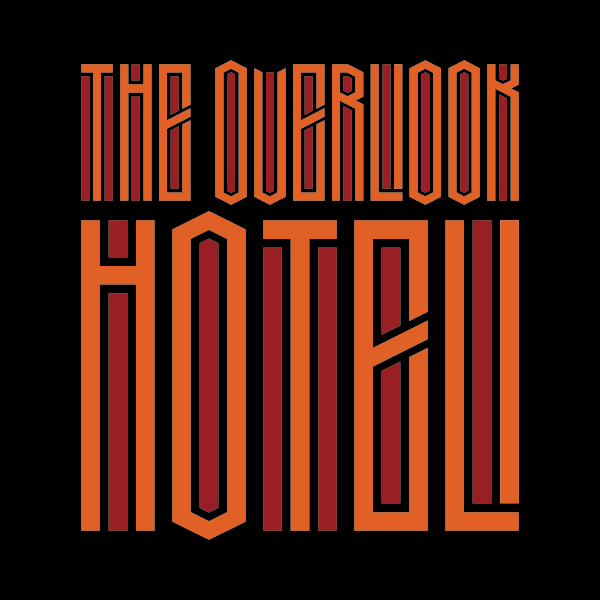
This font is inspired by graphic designer Rafael Serra, who created the letters in "SHINING" using a pentagonal style reminiscent of the Overlook Hotel carpet from The Shining. While I did completely design the font myself, I cannot take credit for the letters S, H, I, N, or G as they are of his design. Here is the link to his Dribble account.
For the rest of my letter forms, I modeled in his style and tried to emulate the pentagonal carpet pattern from the movie. Please enjoy!!
Tall and highly decorative! Reminds me of Cyrillic vyaz in that regard. Nice one. :)
A fresh style that needs more work, seeking unity and homogeneity in the design and in the height of the glyphs, which —as shown— currently reduces much of the positive force created with the font's original angular design. Still, the glyphs are nice.
I personally can’t really decide if unifying the height would help or hurt the design. I’d say that it adds some charm to the font and even makes it slightly more legible since the glyphs are somewhat more discernible due to their different heights.
I agree with @Cookielord on some points about the creativity of maintaining the different glyph heights he mentions, but I was specifically referring to the homogenization of the design of letter groups like B-D, E-F, I-J, B-K-P-R, T-U-V-W... One more little thing that strikes me is that the design of the J is a bit inconsistent with the rest, IMHO. Overall, the font has a very charming design, and that's why we're commenting on it, trying to modestly contribute to its growth, if that's your wish for it. We do it with our best intentions, but you're the boss here. Congrats and go on!